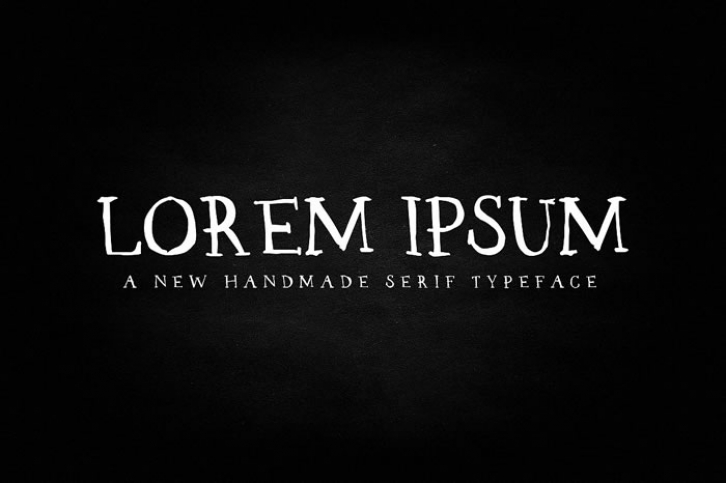
Amazing serif font created with a pen brush on a paper canvas.
Lorem Serif is perfect to use for logo’s, invitations, posters, quotes, letterheads, birthdays and much more!